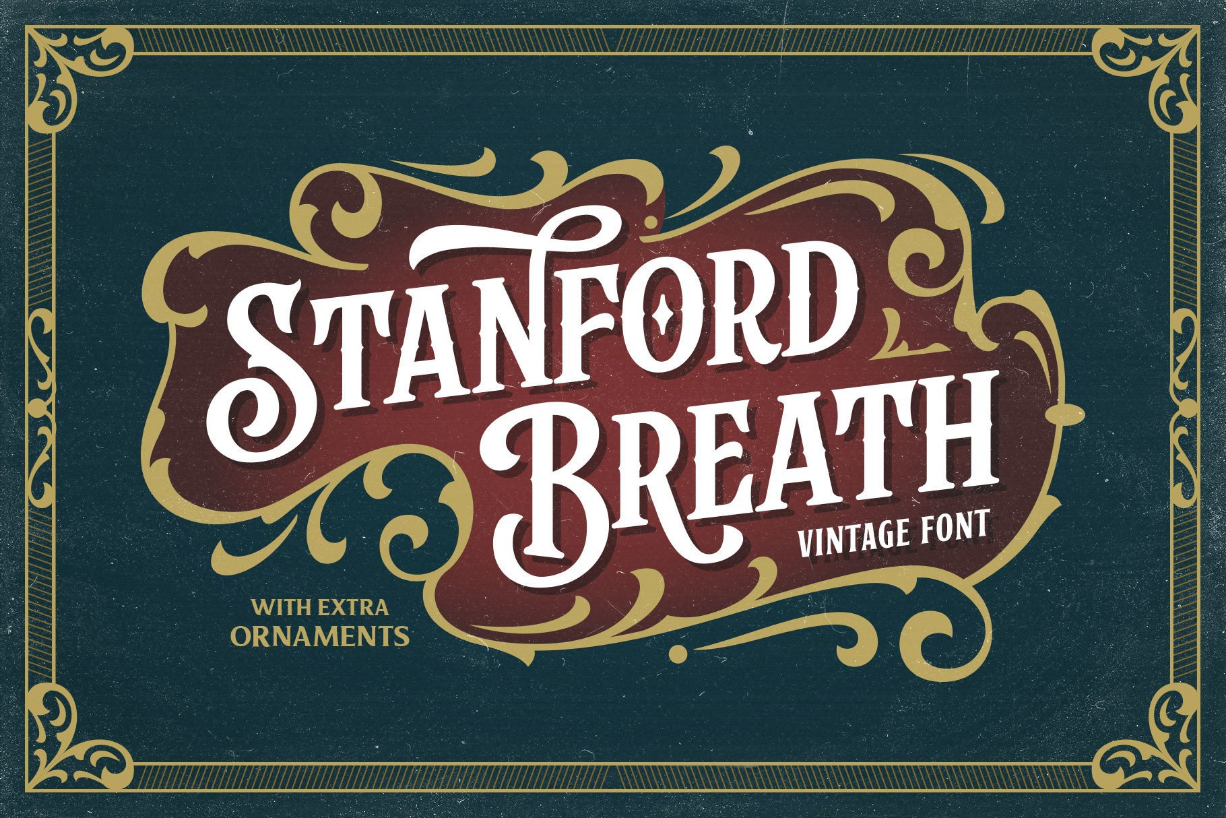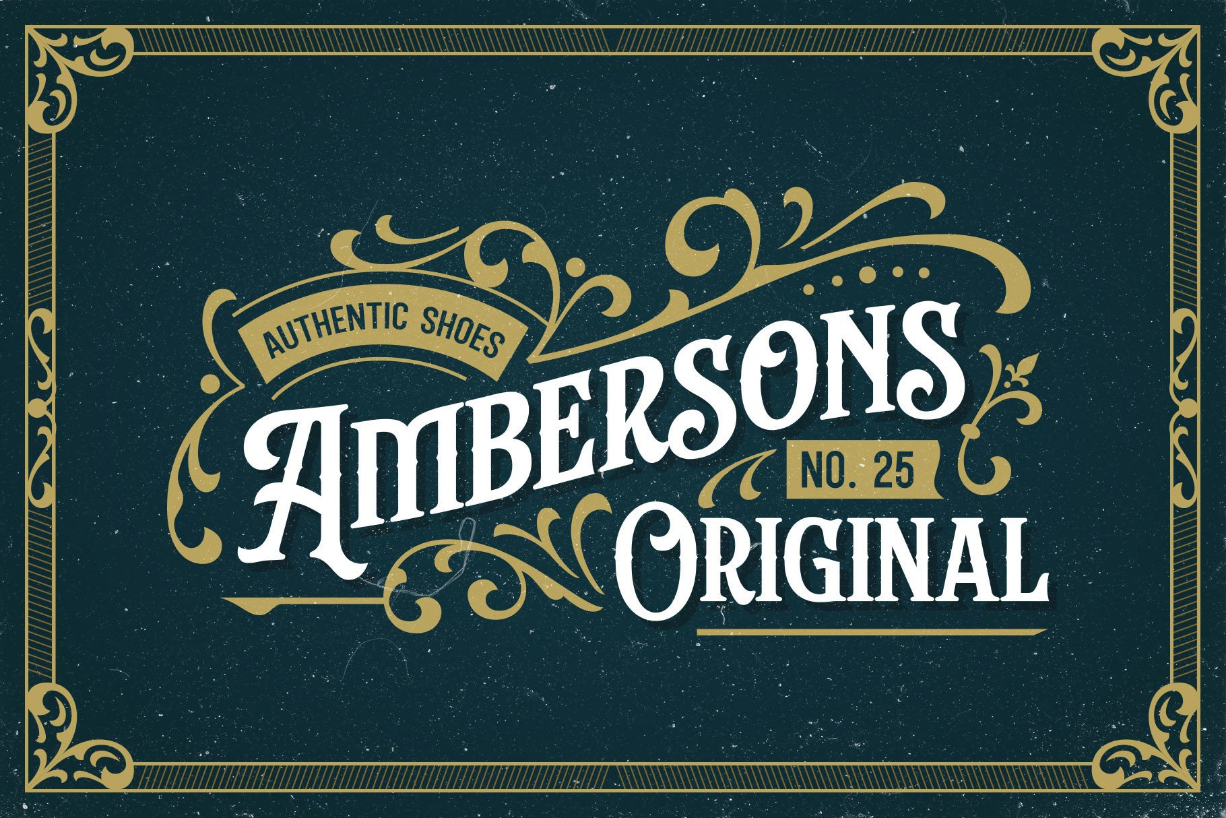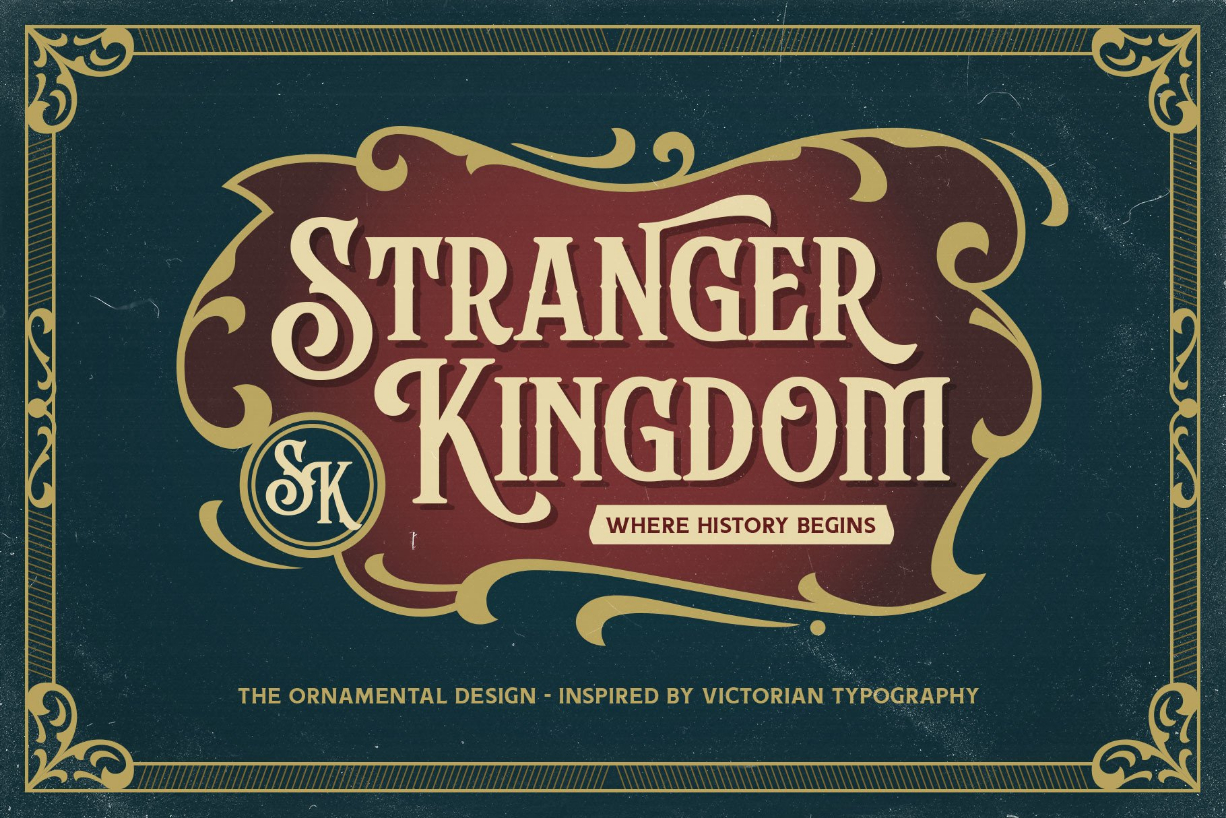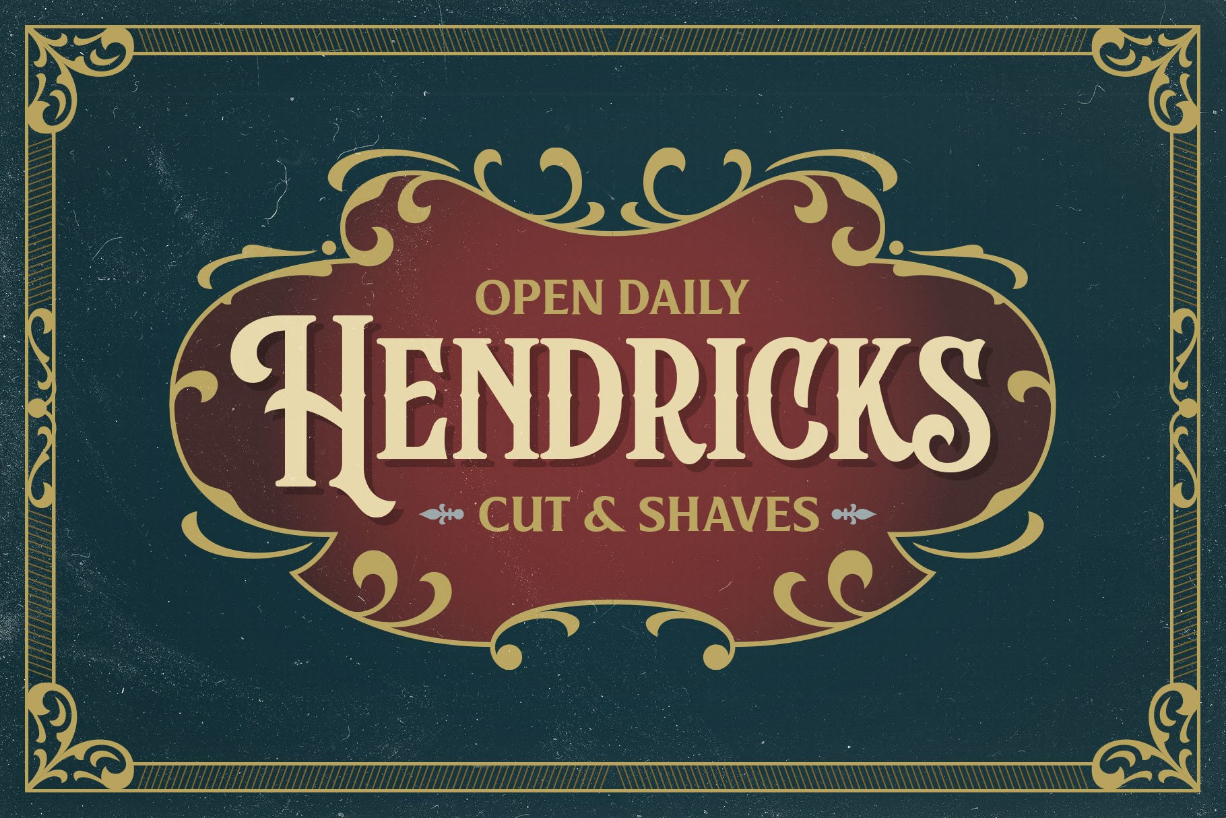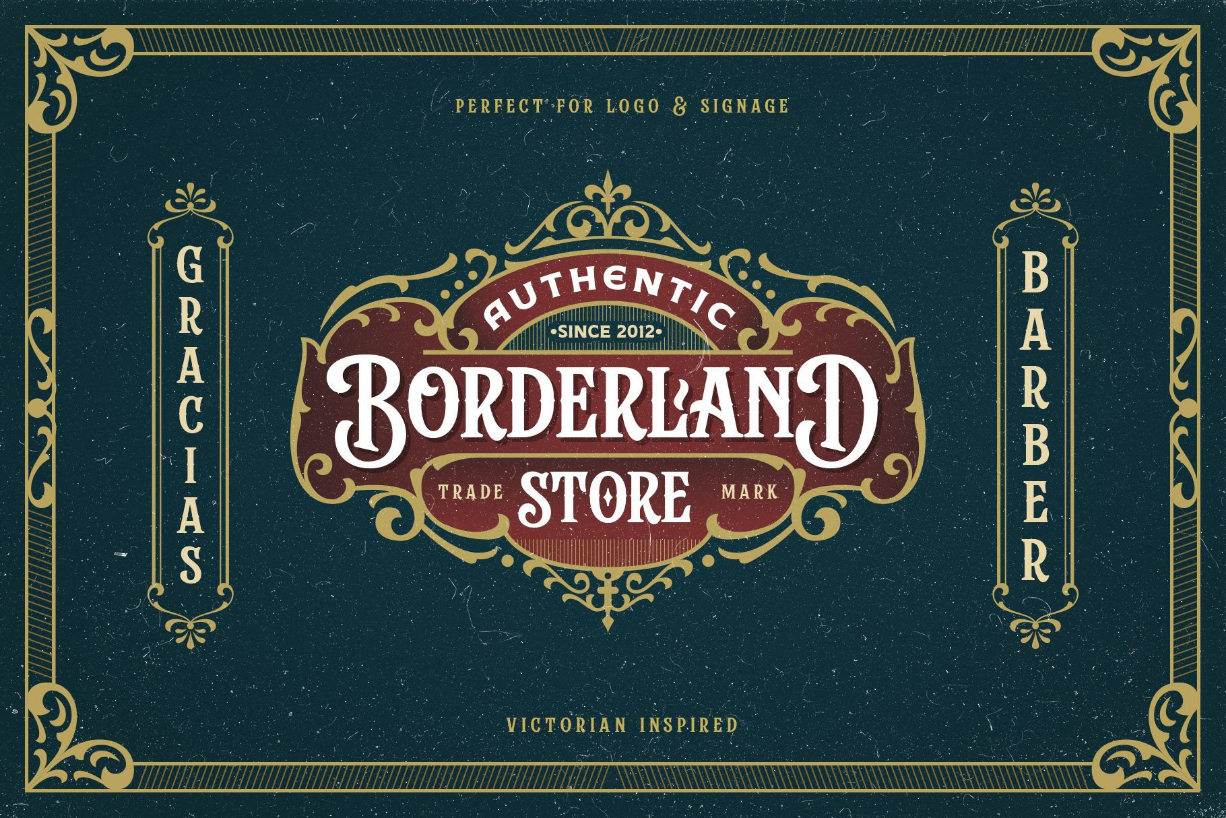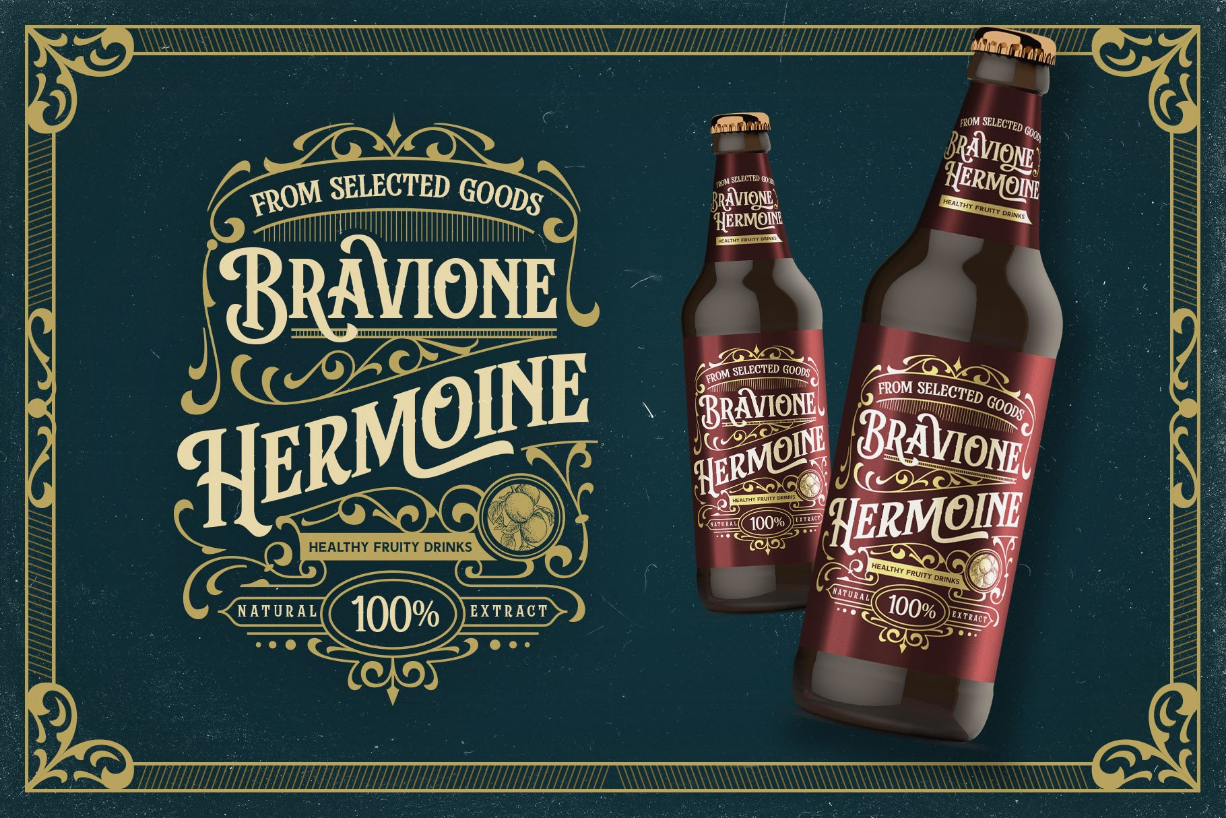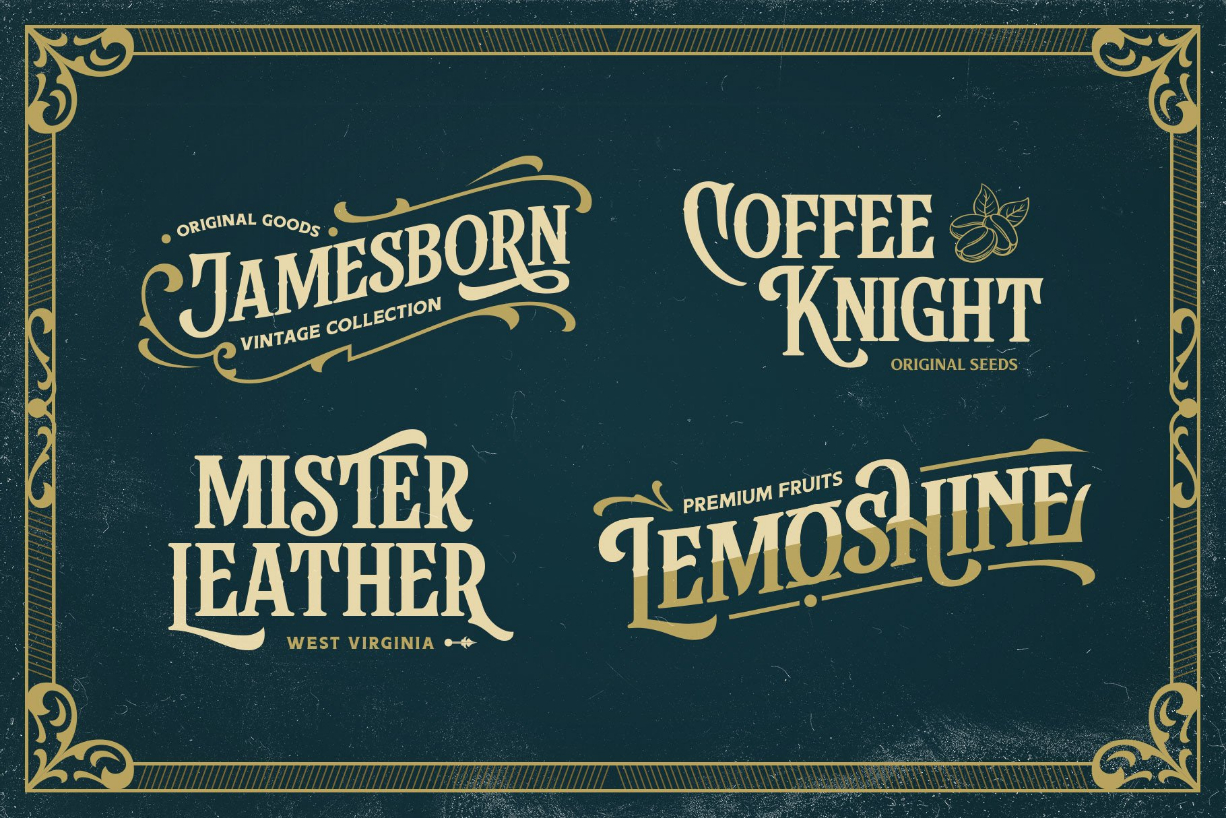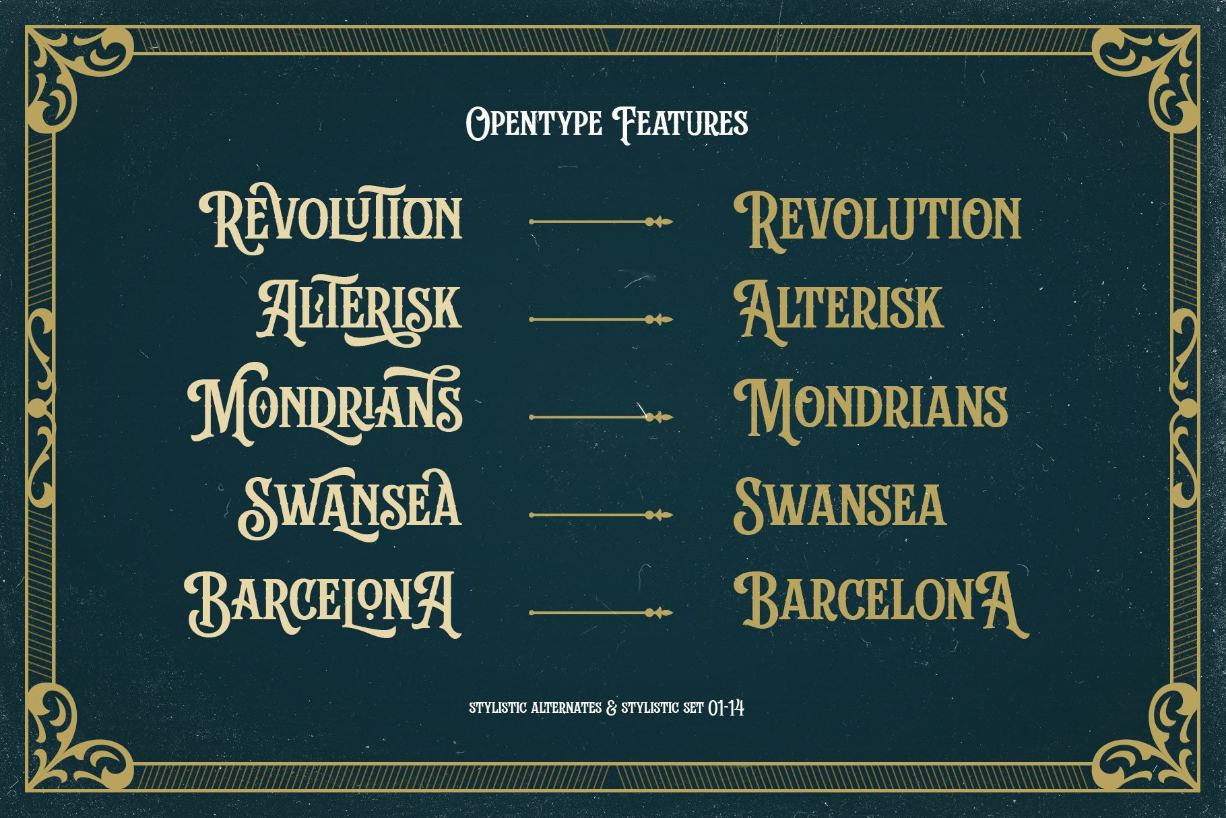
Stanford Breath Font
Stanford Breath is a vintage, Victorian-styled and distinct blackletter font. It is PUA encoded which means you can access all of the glyphs and swashes with ease!